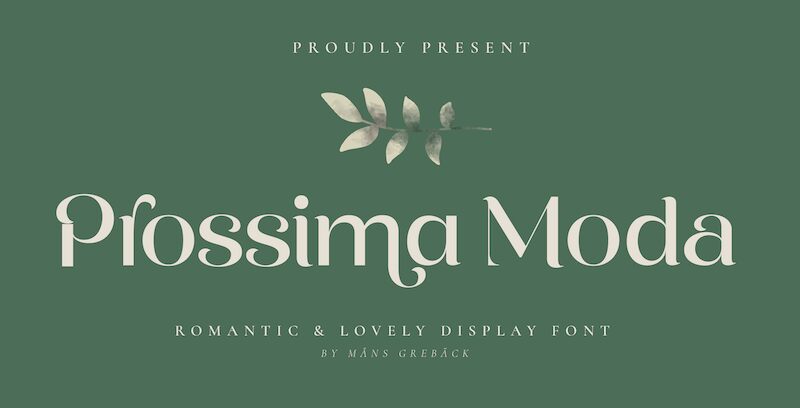
Prossima Moda, a stunning creation by designer Mans Greback, is the epitome of modernity and fashion-forward style. With its sleek serif font style and semi-light weight, this font exudes sophistication and elegance. The contrasting lines within the letters add a captivating visual element that sets it apart from other fonts. Prossima Moda is perfect for projects that require a touch of class and refinement, making it suitable for luxury brand logos or high-end fashion magazines. Its versatility also makes it ideal for website headers or elegant wedding invitations. Stand out from the crowd with Prossima Moda and make a statement that screams contemporary chic.